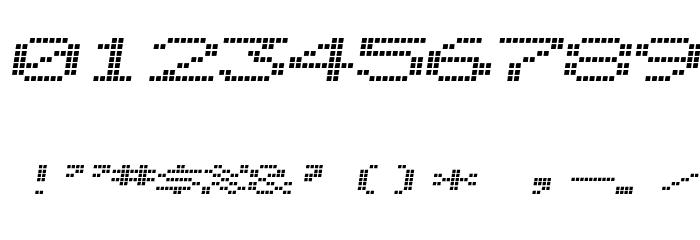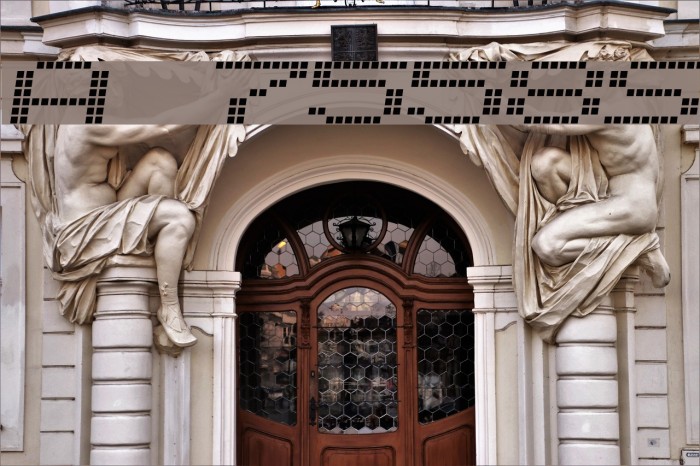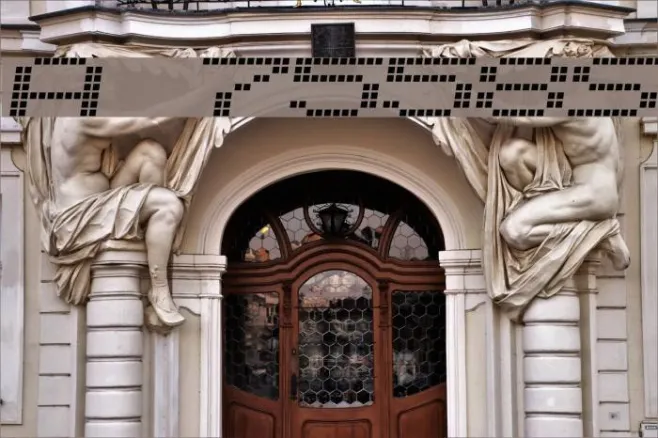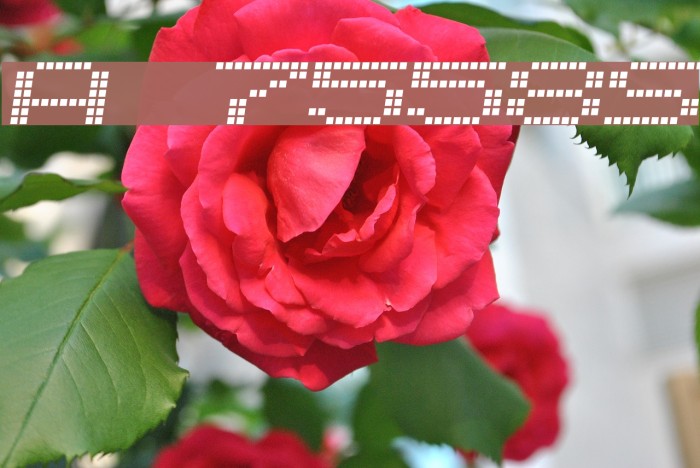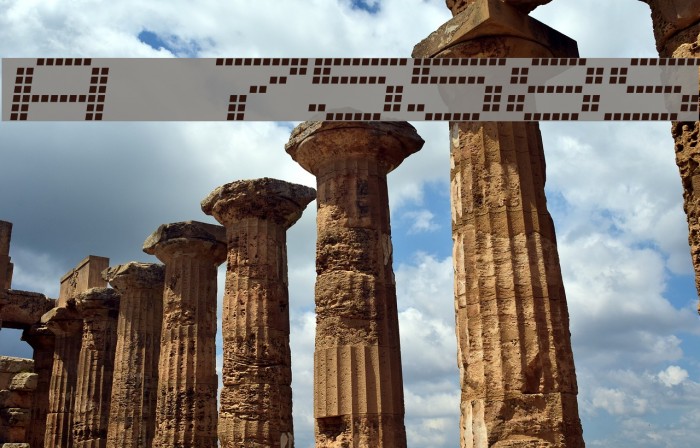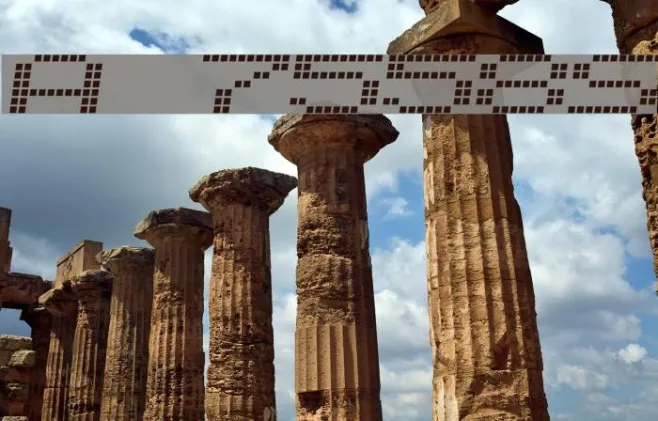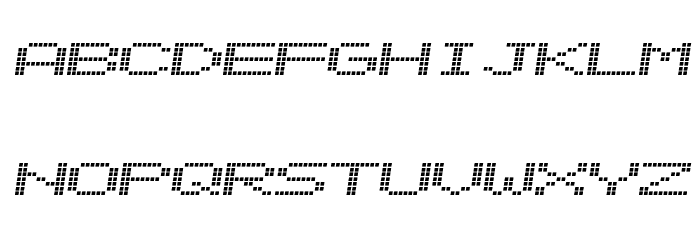
Alpine 7558S Font
Alpine 7558S Description
This font features a distinctive dot matrix style, reminiscent of digital displays or retro computing screens. Each character is constructed from a grid of small, evenly spaced dots, creating a pixelated effect. The uppercase and lowercase letters maintain a consistent height and width, ensuring uniformity across the typeface. Numbers and special characters are designed with the same dot matrix pattern, providing a cohesive look. The font's geometric precision and digital aesthetic make it ideal for projects that require a modern, tech-inspired appearance.
| Use Case | Logos, Headlines, Digital displays |
| Proposed Projects | Ideal for digital displays, retro-themed designs, tech branding, and video game graphics. |